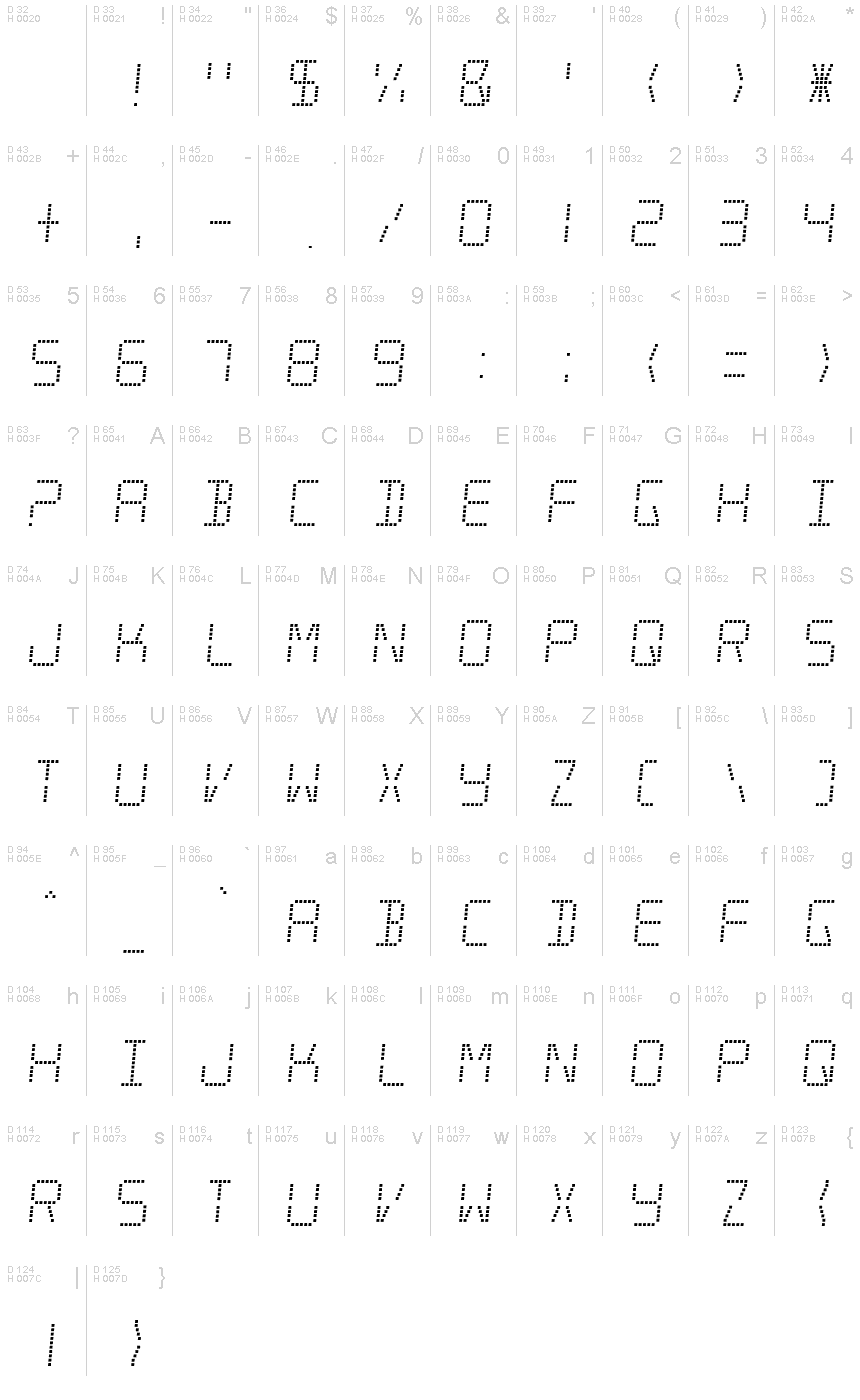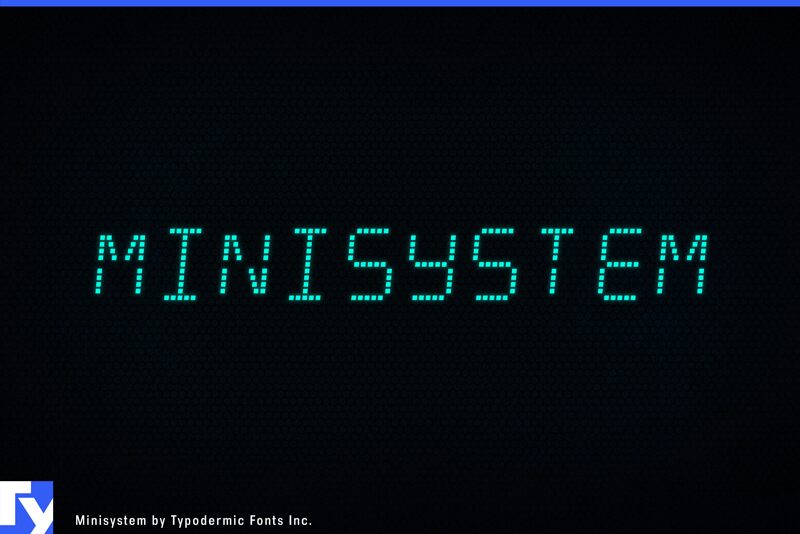
Minisystem-Regular
Minisystem, a captivating display font inspired by the retro-futuristic aesthetics of 1990s home audio digital displays, exudes a distinctive digital charm. Crafted by designer Ray Larabie, this light-weight typeface showcases a meticulously crafted, pixel-perfect design that evokes a nostalgic yet contemporary vibe.
The sharp, angular letterforms and the crisp, uniform strokes of Minisystem lend it a bold, attention-grabbing presence. Its minimalist, low-fi appearance makes it an ideal choice for a wide range of design applications, from retro-themed branding and packaging to bold, eye-catching headings and digital interfaces. This font's versatility shines through in its ability to seamlessly blend vintage and modern sensibilities, creating a unique and captivating visual experience.